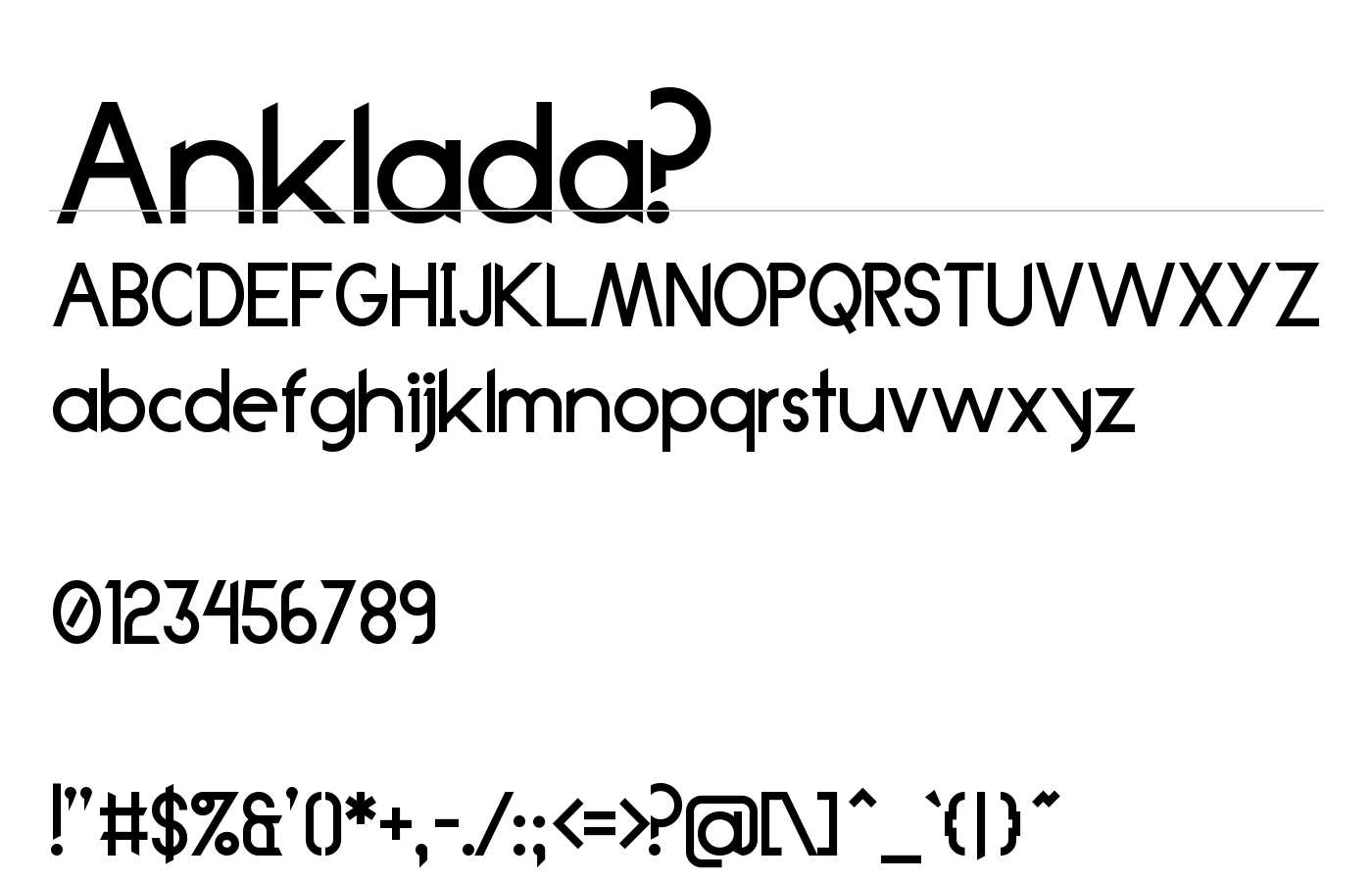
Anklada Novaz is a sleek, modern sans serif font with a distinct geometric style and sharp, clean lines. It features a regular weight with a moderately tall x-height and unique letterforms that blend smooth curves with angular cuts, giving it a contemporary and slightly futuristic feel. This font works well for branding, editorial design, and digital projects where a stylish, sophisticated, and innovative look is desired.
Anklada Novaz Font
About Anklada Novaz Font
| Font family | Anklada Novaz Font |
| Designer | Yun González |